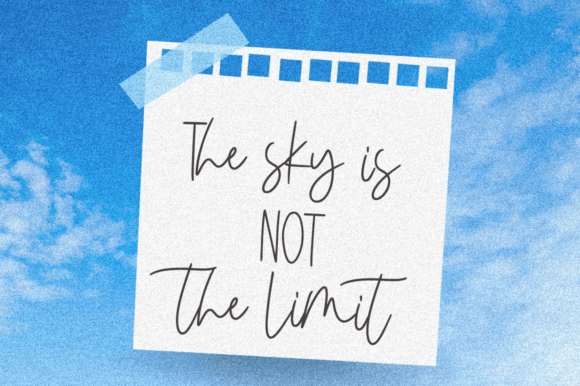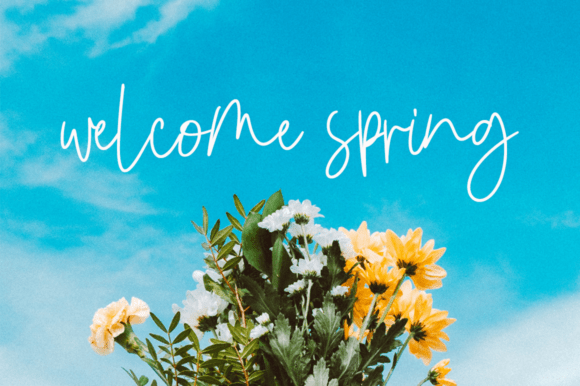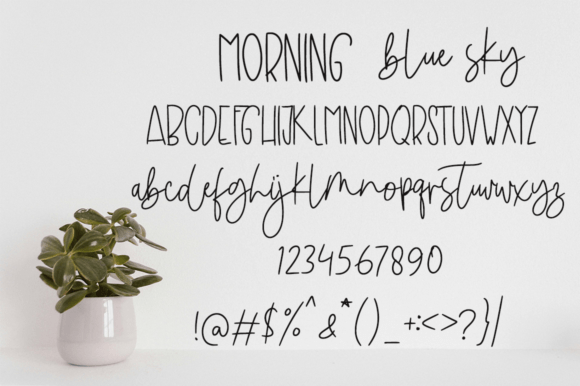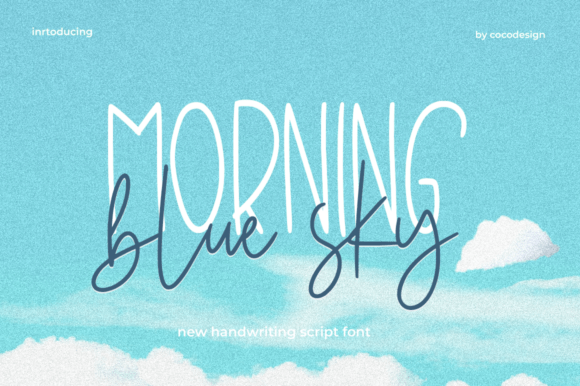
Introduction to Morning Blue Sky Font
Introducing β€œMorning Blue Sky”, a delicately thin handwritten font whose beauty lies in its simplicity.
Its elegant and streamlined profile can effortlessly uplift any creative project you’re working on Imbued with a touch of versatility, this enchanting typeface is ready to be an invaluable addition to your font collection, offering the potential to beautifully amplify your designs, regardless of the theme.
Key Features of Morning Blue Sky Font
Why Choose Morning Blue Sky Font?